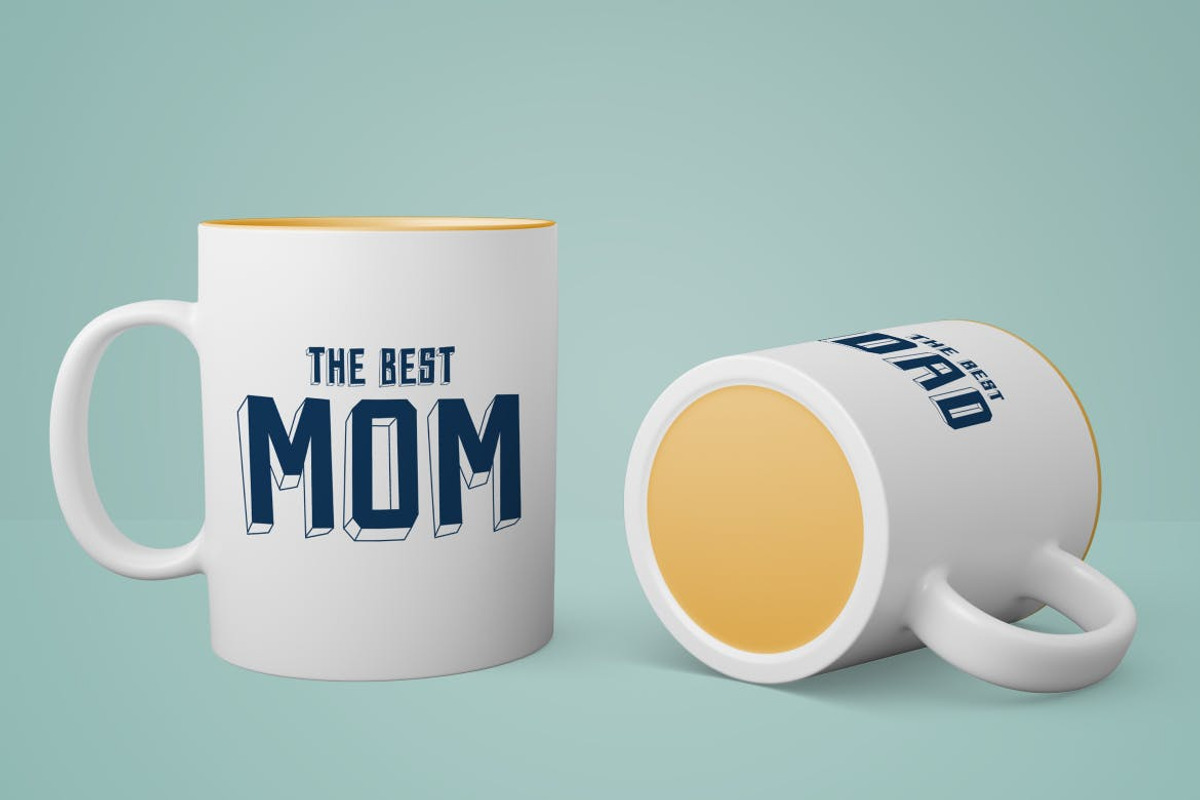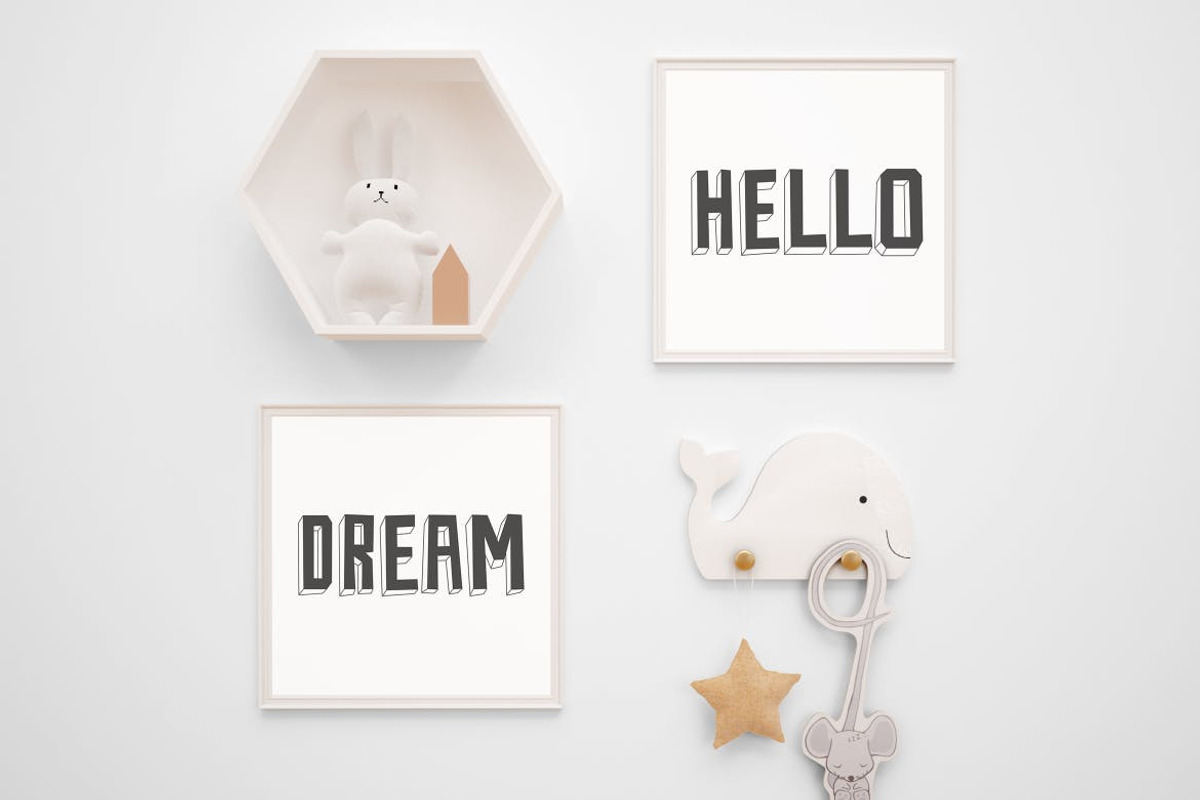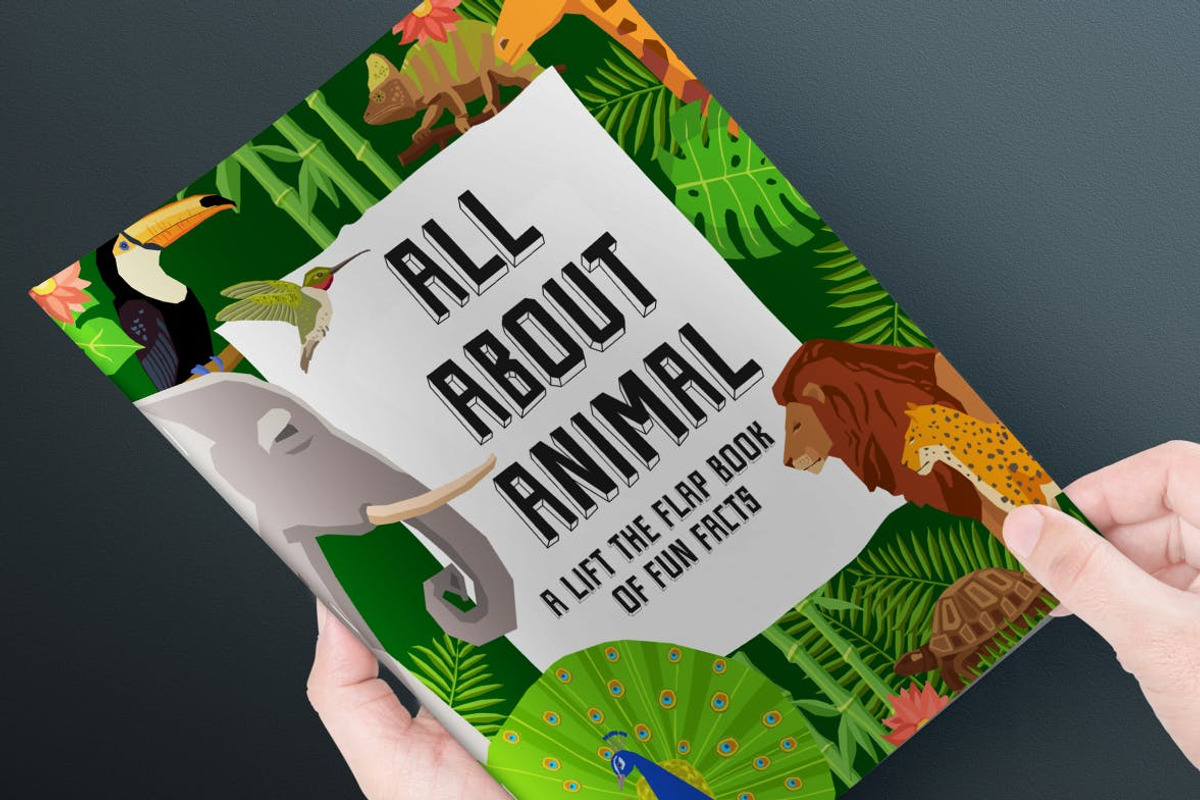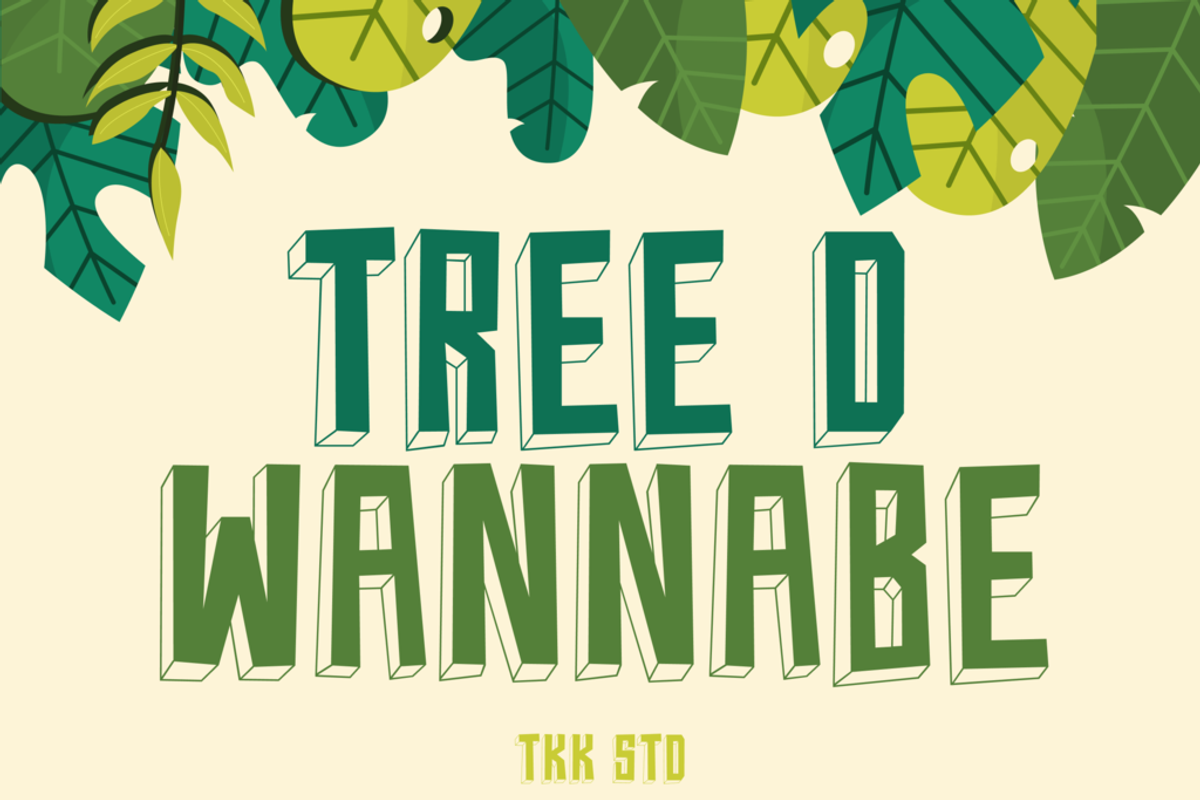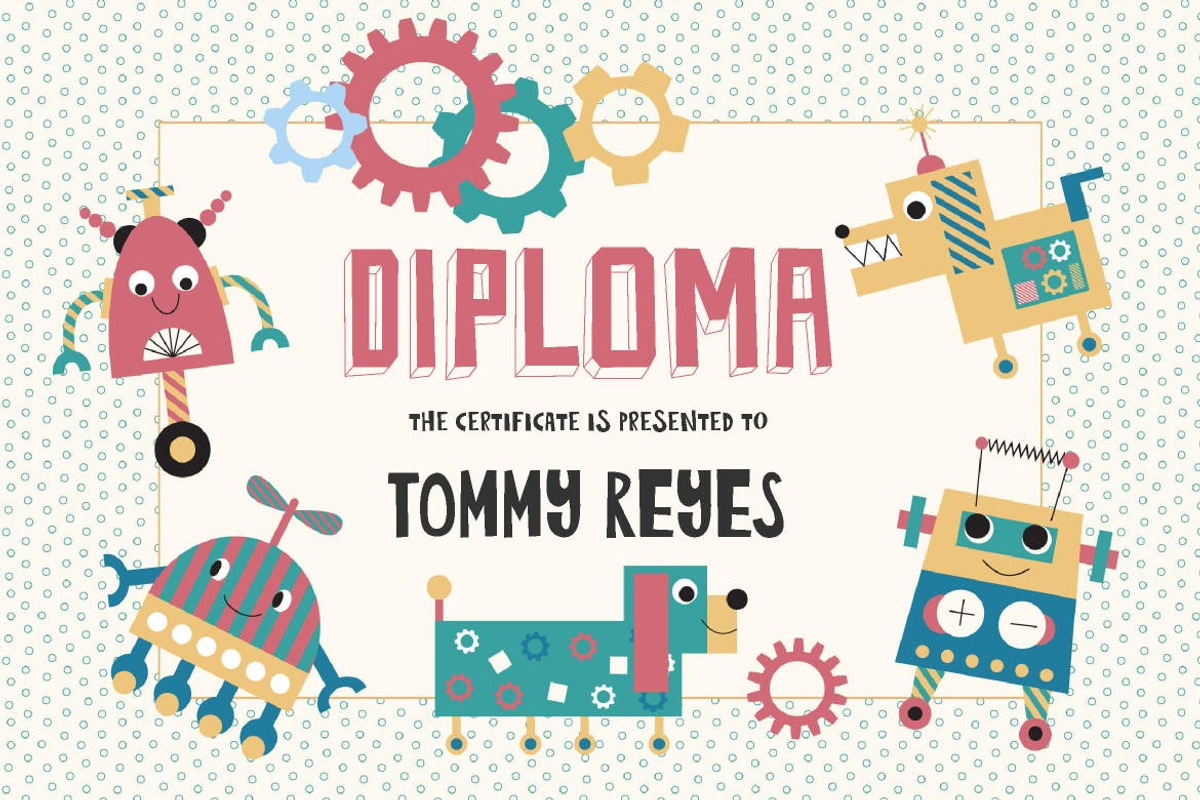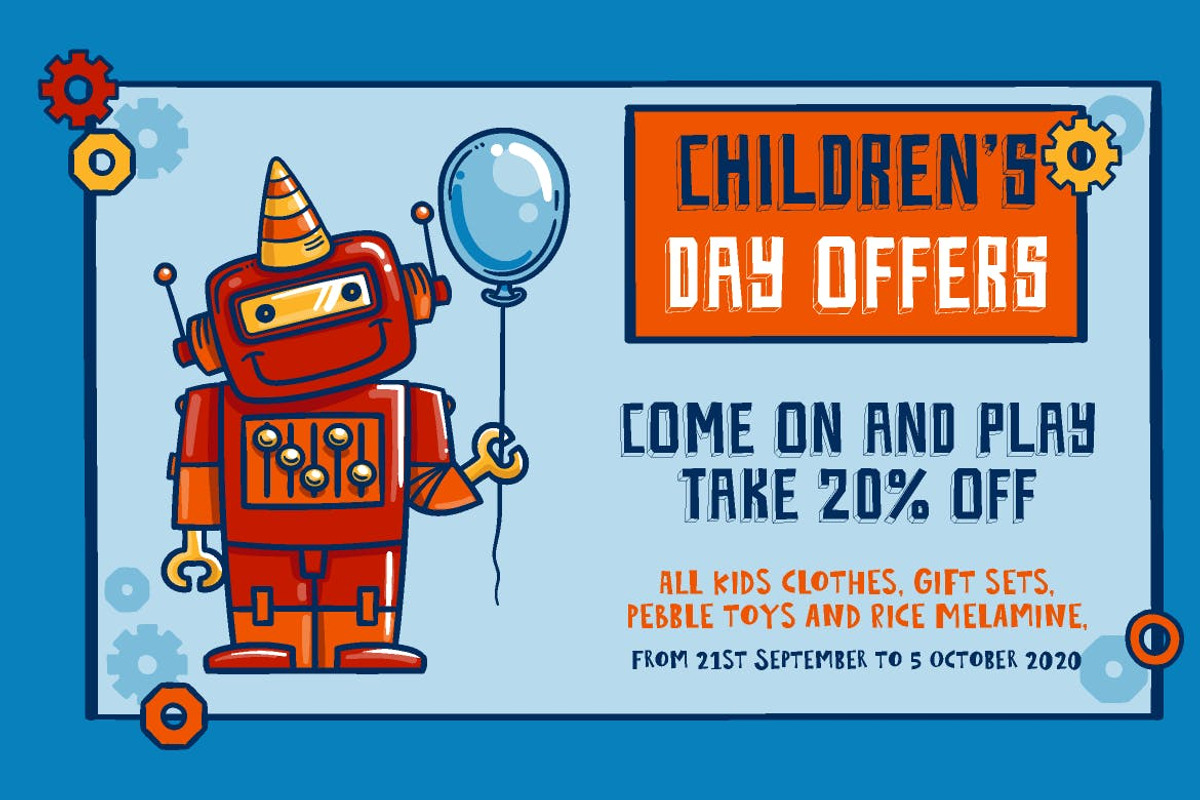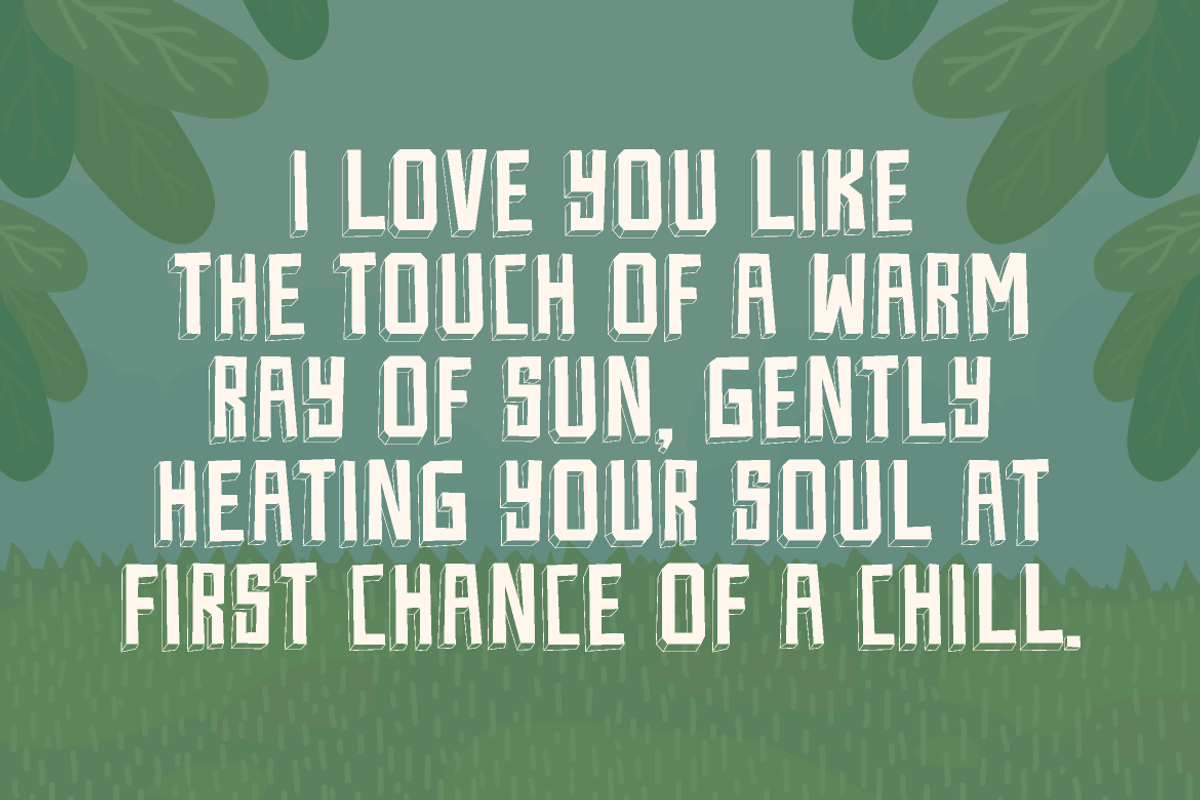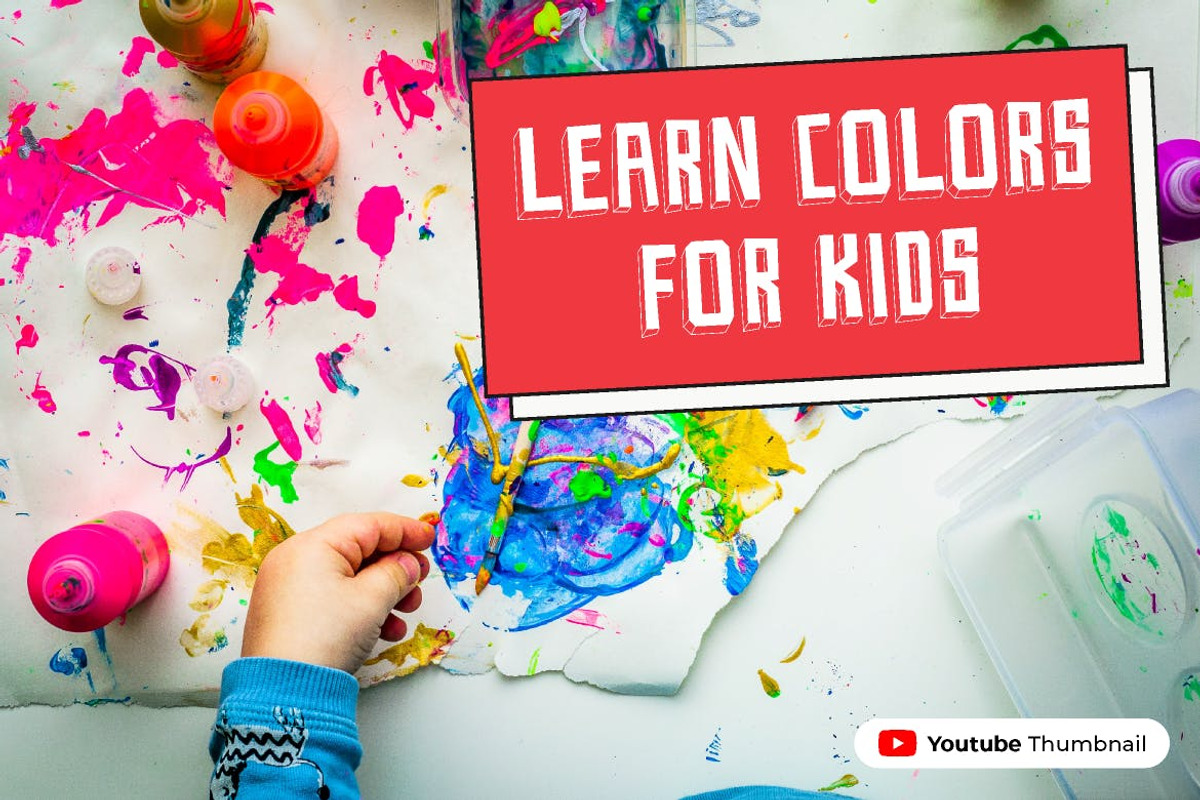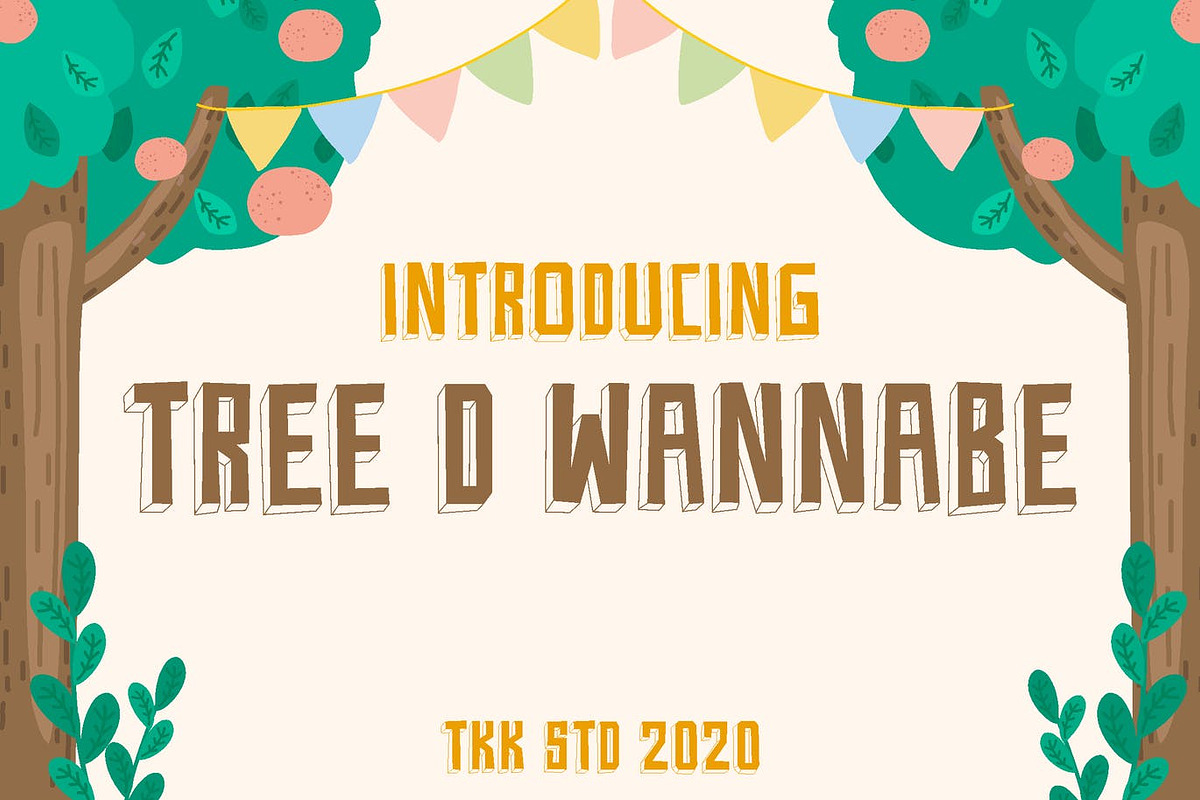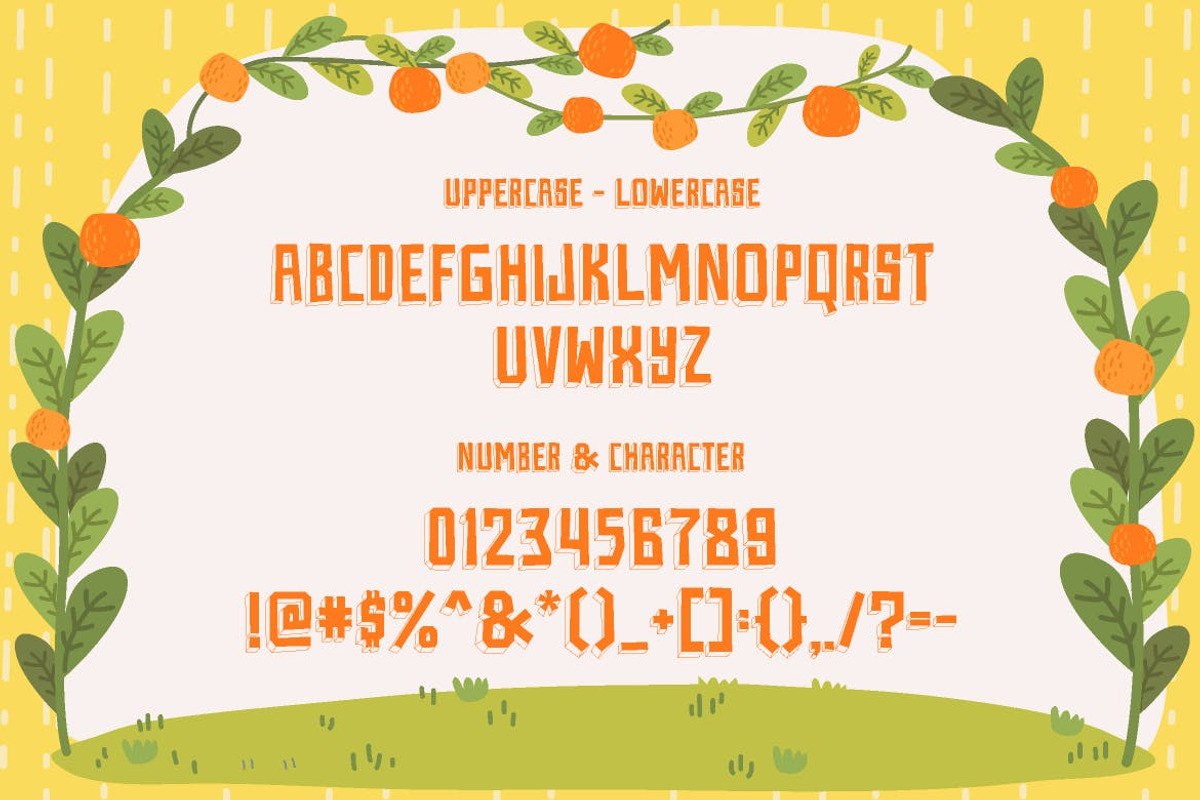
Tree D Wannabe - Kids Font
Tree D Wannabe kids font just like its name, this quirky little font, is living it up to his name. Blocky shape and with that extruded style, still cute enough for kiddies.
Suit perfectly for Online Games, poster, movie title, fast food menu, magazine, youtube covers, youtube thumbnails, social media page covers and so on...